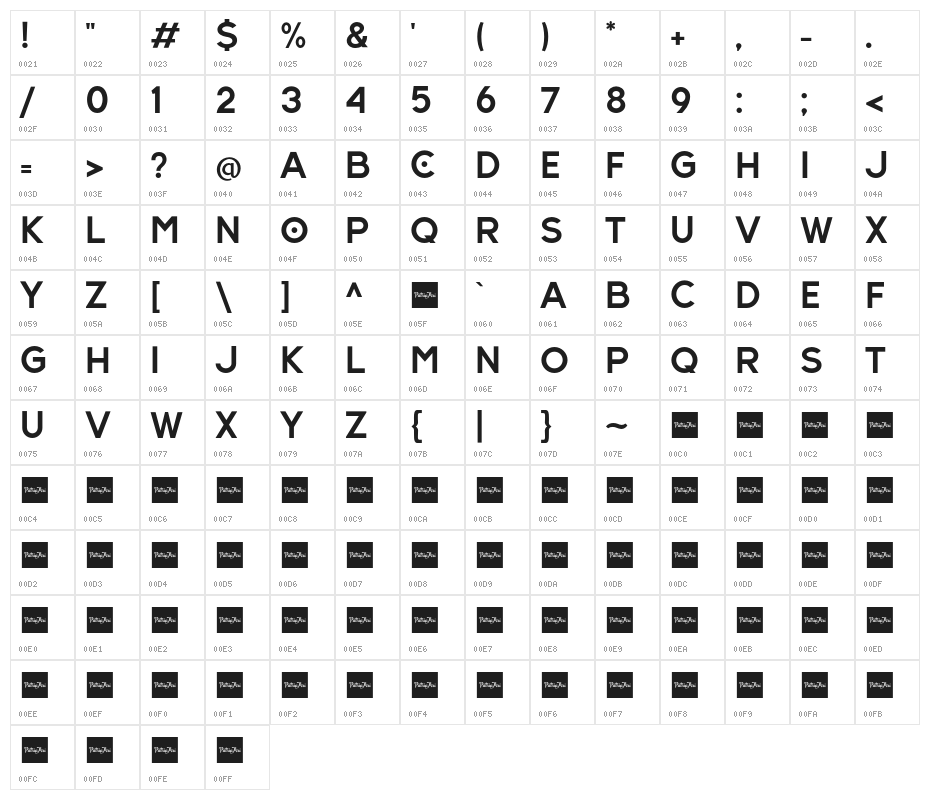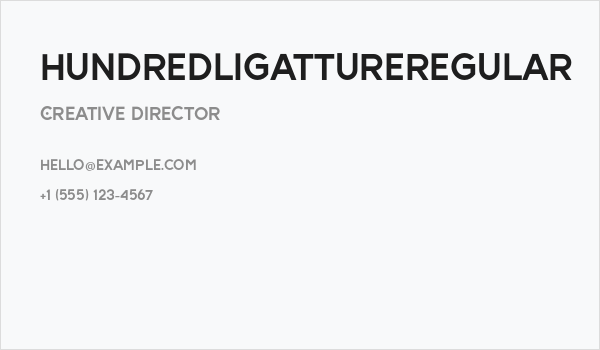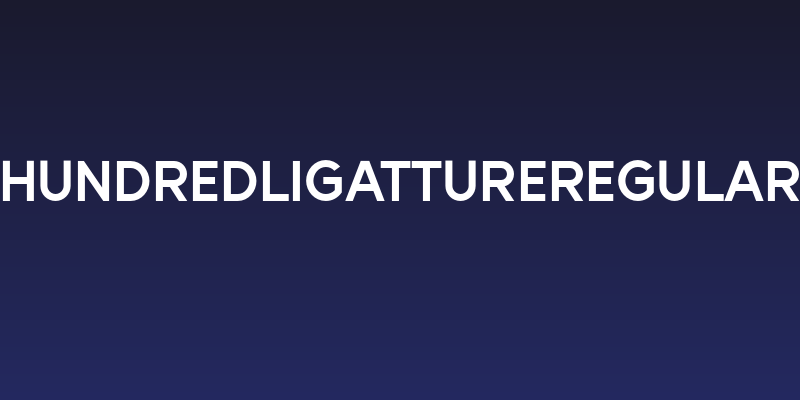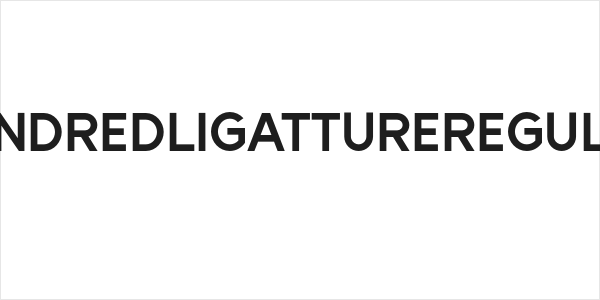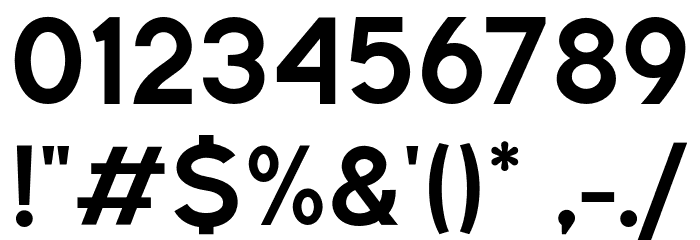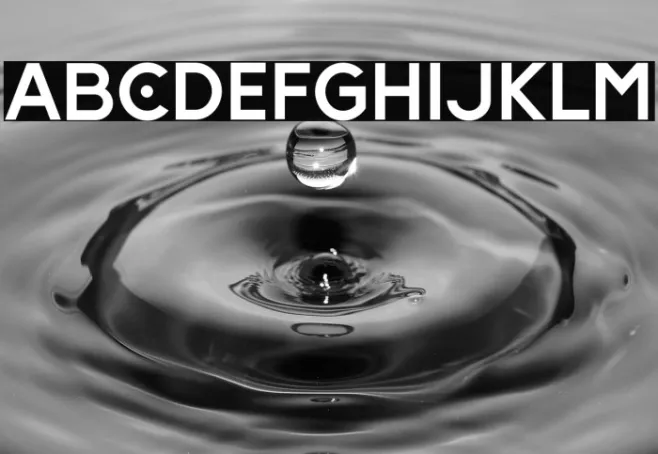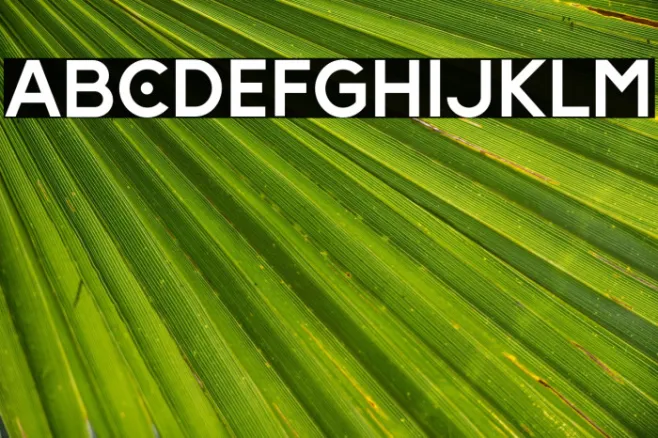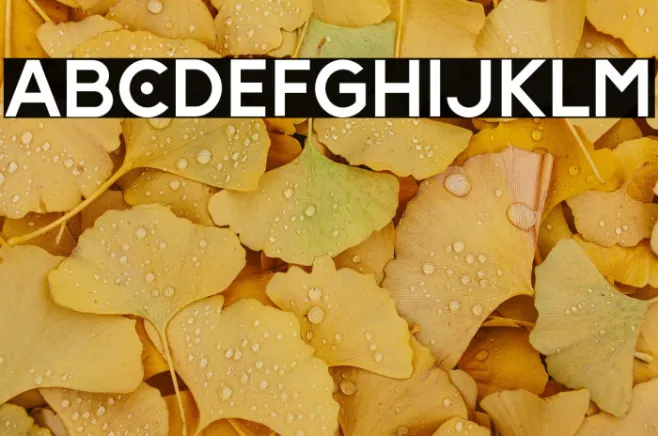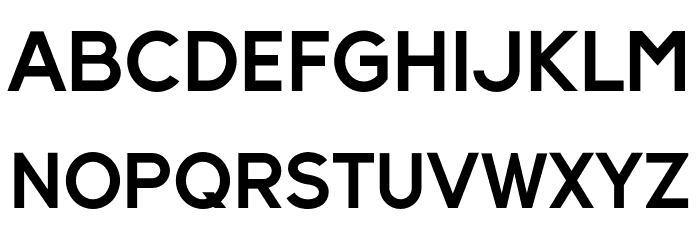
HundredLigattureRegular Font
HundredLigattureRegular Description
This font features a clean and modern sans-serif style with uniform stroke widths, giving it a sleek and professional appearance. The characters are well-balanced with a geometric influence, evident in the circular shapes of the 'O' and 'C'. The uppercase and lowercase letters maintain a consistent height, contributing to a harmonious look. The numerals are clear and legible, making them suitable for various applications. Special characters are included, enhancing the font's versatility. Overall, this typeface is ideal for projects requiring a contemporary and straightforward aesthetic.